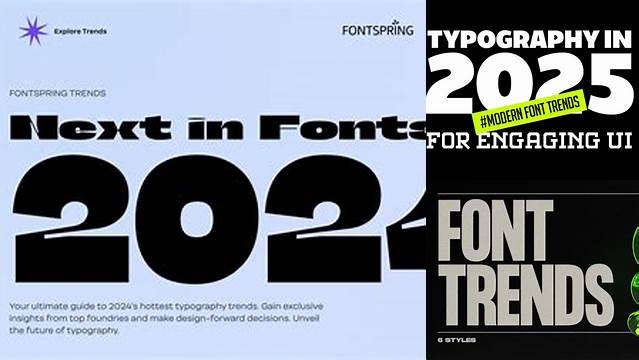
Top Font Trends For 2025: What's Hot?
Hey everyone! Ever wonder what's gonna be the look in fonts next year? Well, you've come to the right place. We're diving headfirst into the world of typography to uncover the trending fonts for 2025. Buckle up, because we're about to explore what's shaping up to be the next big thing in design. Forget those stale, overused typefaces; we're talking about fresh, exciting fonts that'll make your projects pop. Whether you're a seasoned designer, a budding creative, or just someone who loves a good font, this guide is your ultimate cheat sheet for staying ahead of the curve. So, let's jump in and discover the fonts that will be dominating the design scene in 2025. We'll cover everything from sleek modern serifs to playful, quirky sans-serifs, and everything in between. Get ready to revamp your font game!
The Rise of Variable Fonts
Alright, let's kick things off with a major player in the font world: variable fonts. Guys, these aren't your average, run-of-the-mill fonts. Variable fonts are the ultimate design tool, providing designers with an incredible amount of flexibility and control. Think of it like this: instead of just having a regular, bold, and italic version of a font, variable fonts let you adjust the weight, width, slant, and other characteristics within a single font file. It's like having a whole family of fonts packed into one. This means you can create smooth, seamless transitions between different styles, making your typography dynamic and engaging.
Why are variable fonts so important? Well, they're incredibly versatile. They allow for responsive design, adapting seamlessly to different screen sizes and devices. This is a huge win for user experience because your text will always look sharp and readable, no matter where it's viewed. They can also help improve website performance. Since you're using fewer font files, your website loads faster. That's always a good thing, right? Expect to see more and more designers embracing variable fonts in 2025. They are not just a trend; they are revolutionizing how we use and experience typography. They are a game-changer for anyone looking to push the boundaries of design. If you're not already familiar with variable fonts, now is the time to get acquainted. They're going to be everywhere. They’re going to allow for some seriously creative stuff. Embrace the flexibility, and watch your designs come to life like never before.
Bold Serifs and Modern Classics
Next up, let's talk about serifs. Yes, the classic, elegant, and often traditional serifs are making a comeback, but with a modern twist. We're seeing a resurgence of bold serifs, guys. These aren't your grandma's serifs. Think of thick, powerful strokes, sharp details, and a touch of contemporary flair. These fonts demand attention and add a touch of sophistication to any project. They're perfect for headlines, logos, and anything where you want to make a strong statement. This is one of the key trending fonts right now.
Why the resurgence? Designers are always seeking to blend tradition with innovation. Bold serifs offer a way to honor the history of typography while injecting a dose of modernity. The contrast between the bold strokes and the delicate serifs creates a visually stunning effect. This makes them incredibly versatile and suitable for a wide range of applications, from fashion and luxury brands to editorial design. We are seeing a renewed appreciation for the craftsmanship and artistry of traditional fonts, combined with a desire for something fresh and contemporary. Expect to see a lot of bold serifs in 2025. Designers are also experimenting with different weights and styles within the serif family, adding even more variety and visual interest. It's all about finding the perfect balance between classic elegance and modern appeal. The key is to choose a serif that aligns with your brand's personality and overall aesthetic. Bold serifs will be dominating the design landscape, adding a touch of class and sophistication to everything they touch. This trend is showing no signs of slowing down, so get ready to embrace the beauty and impact of bold serifs in your designs.
Quirky and Playful Sans-Serif Fonts
Alright, let's swing over to the world of sans-serifs. These fonts are known for their clean lines and simplicity. But, in 2025, we're going to see a rise in quirky and playful sans-serifs. These fonts are all about personality and adding a touch of fun to your designs. Think of unique letter shapes, unexpected details, and a sense of whimsy.
This is one of the most exciting trending fonts because it allows designers to inject a sense of playfulness into their work. They're ideal for brands looking to appeal to a younger audience, or for projects that want to convey a sense of joy and creativity. From geometric shapes to hand-drawn styles, these fonts come in a variety of forms, each offering a unique visual experience. Why the shift towards quirky fonts? Designers and brands are seeking ways to stand out from the crowd and create a memorable impression. These fonts offer a way to do just that. They add a level of personality and approachability that can be hard to achieve with more traditional styles. It's about injecting a dose of fun into your designs. They can be used in a variety of applications, from websites and apps to branding materials and packaging. The key is to find a font that aligns with your brand's values and aesthetic. Be prepared to see these fonts everywhere, from websites and social media to packaging and advertising. This trend encourages creativity and individuality. This trend is all about embracing the unique and unconventional. So, let your creativity run wild, and don't be afraid to experiment with these playful and engaging fonts.
The Influence of Hand-Drawn Fonts
Hand-drawn fonts are making a comeback, bringing a touch of authenticity and personality to design. These fonts offer a unique, human touch that can make your designs feel more approachable and engaging. They are one of the top trending fonts because they add a level of warmth and personality that's hard to replicate with digital fonts. Think about it: each letter has its own quirks and imperfections, making your designs feel more unique and inviting.
The rise of hand-drawn fonts reflects a broader trend towards authenticity and personalization in design. In a world dominated by digital interfaces and mass production, people are craving a more human connection. Hand-drawn fonts help to fill that void. They're perfect for branding, packaging, and any project where you want to create a sense of warmth and intimacy. Designers are using these fonts to convey a sense of originality and craftsmanship, adding a level of personality that can make your brand stand out. Whether you're looking for a casual script or a more structured sans-serif, there's a hand-drawn font out there to suit your needs. They bring a sense of craft and authenticity. So, as we head into 2025, expect to see more and more hand-drawn fonts popping up in all kinds of projects, adding a touch of personality and charm to the design landscape. They have a certain charm that's hard to resist. Embrace the unique and embrace the beauty of hand-drawn typography.
Color and Font Pairings
Let's talk about color. Choosing the right color palette is crucial. The font pairing will be key. Color and font pairings are a huge deal in design, right? The right combination can make or break the entire look and feel of your project. In 2025, we're going to see some exciting color trends that perfectly complement the fonts we've already discussed.
Consider bold, vibrant colors paired with those bold serifs to create a sense of luxury and sophistication. Think of the hand-drawn fonts. These are great when paired with earthy tones and pastel colors. It adds a touch of warmth and approachability. The goal is to create visual harmony. You want the colors and fonts to work together to tell a story. So how do you nail this? First, understand your brand's personality. What message do you want to convey? Is it fun, serious, or something in between? Once you've defined your brand's voice, start experimenting with different color and font combinations. Look at the mood you want to set. Don't be afraid to try different combinations. See what feels right. You'll be surprised at how a slight shift in color can dramatically change the overall feel of your design. Expect to see a focus on high-contrast combinations. These really stand out. Also, the use of monochromatic color palettes. These bring a sense of elegance and sophistication. By carefully selecting your colors and fonts, you can create designs that are visually stunning and effectively communicate your message. Color and font pairings are a powerful tool. You can take your designs to the next level. So, get ready to explore the endless possibilities of color and typography.
Key Takeaways and Trends for 2025
So, what should you take away from all this? What are the key trends you should watch out for as we head into 2025? Here's a quick recap:
- Variable Fonts: Versatility and flexibility will be key.
- Bold Serifs: Expect classic fonts with a modern twist.
- Quirky Sans-Serifs: Embrace the fun and playful.
- Hand-Drawn Fonts: Add a touch of authenticity and personality.
- Color and Font Pairings: Experiment and be creative.
As a designer, you should always stay informed about the latest trends. By understanding what's hot in typography, you can create designs that are not only visually appealing but also relevant and effective. It's about being ahead of the curve. These trends are a starting point. The best designers are constantly experimenting and pushing boundaries. The key is to be creative and always be curious. So go out there, explore these trends, and create some amazing designs. The future of typography is exciting. Get ready to embrace the new and the innovative!